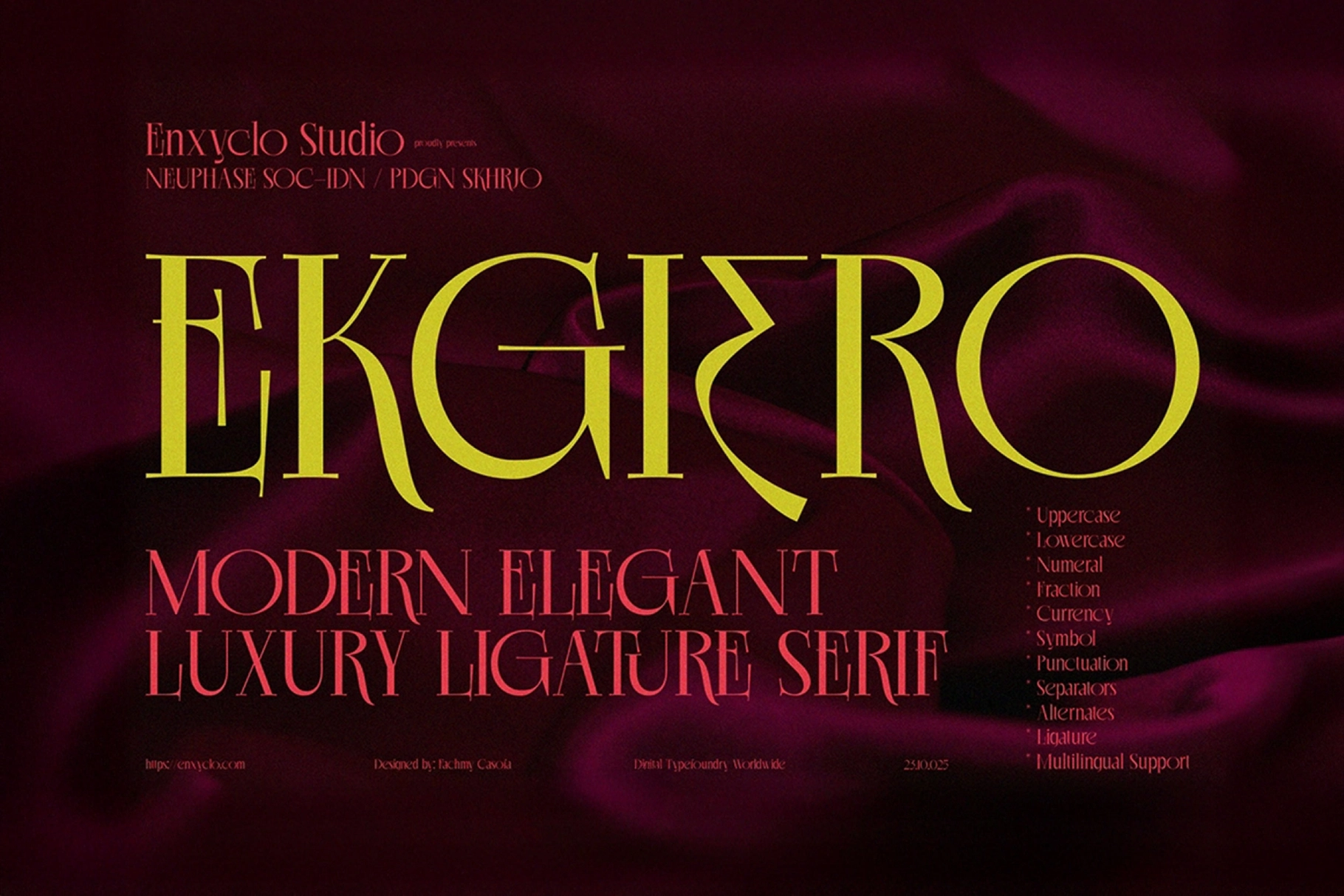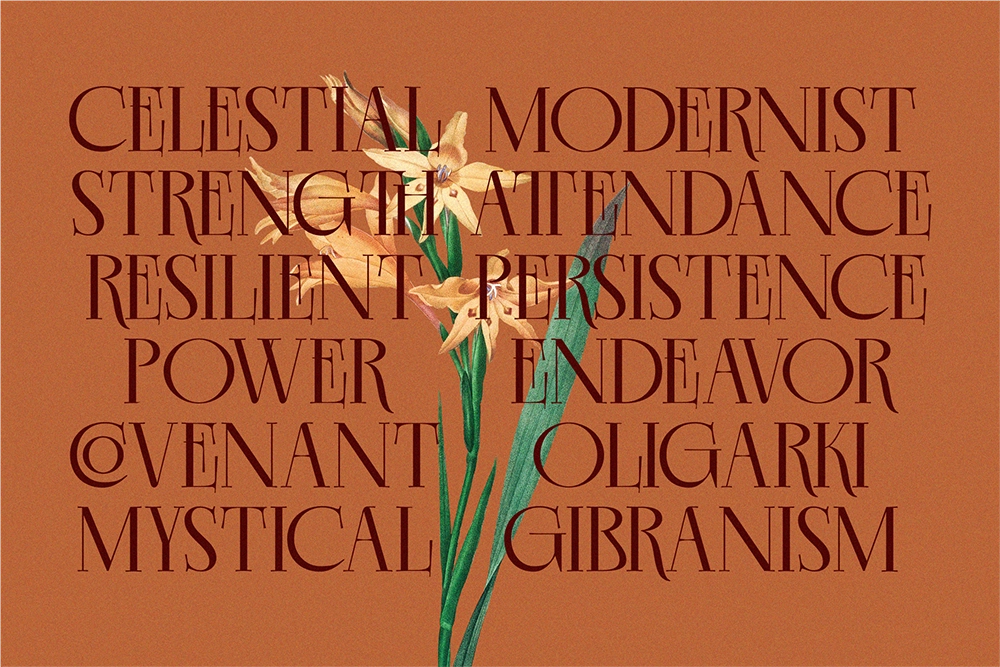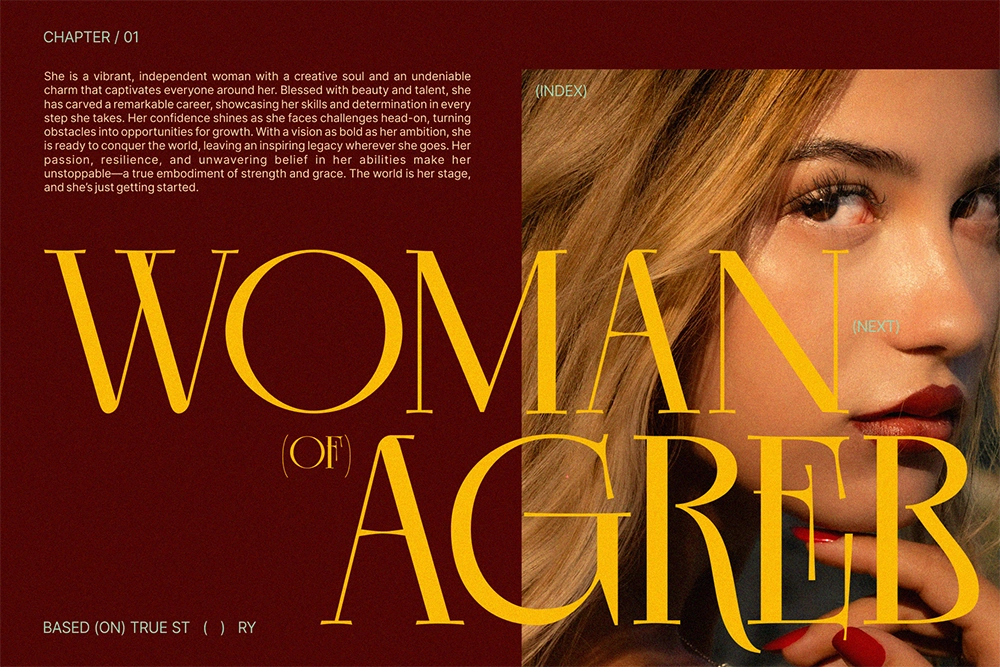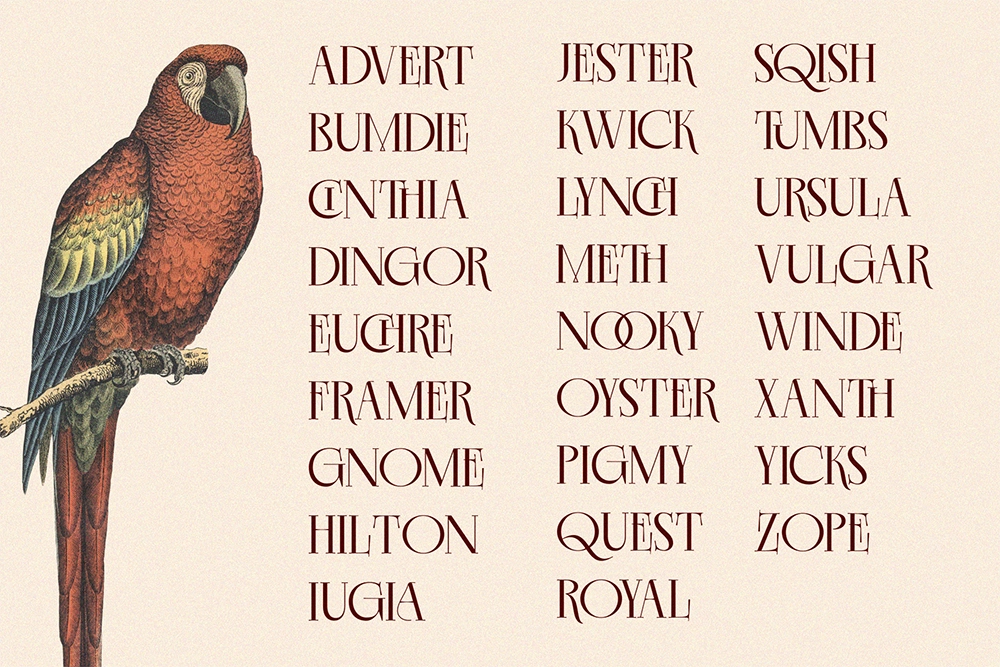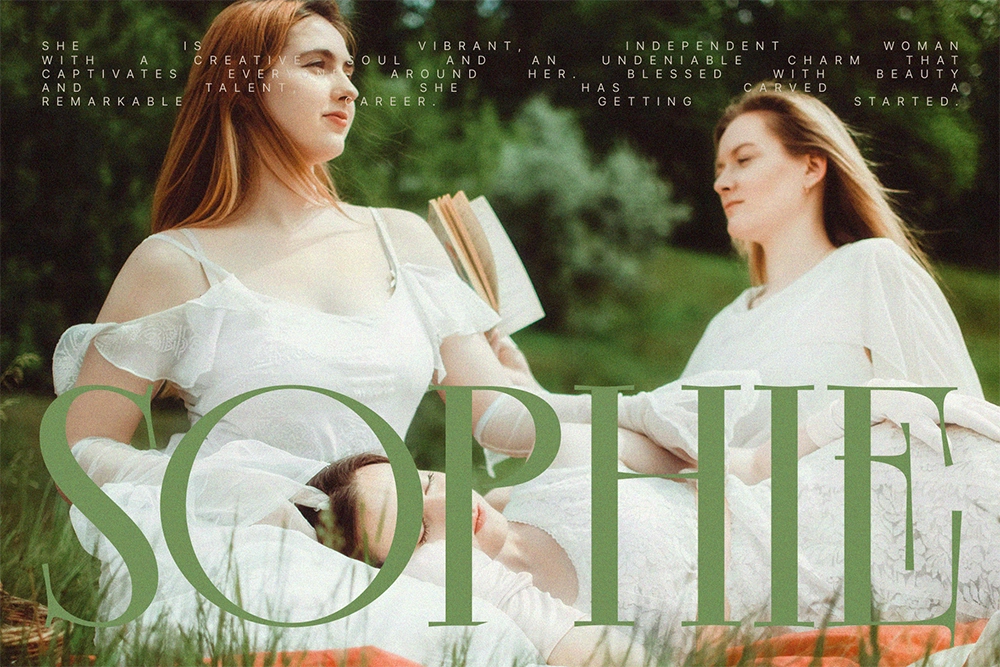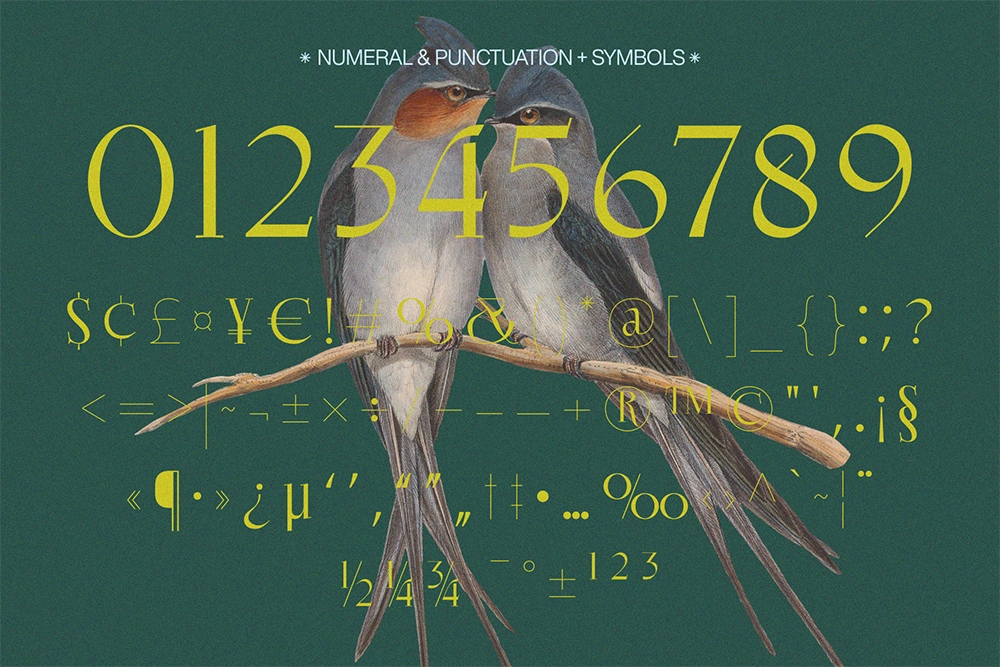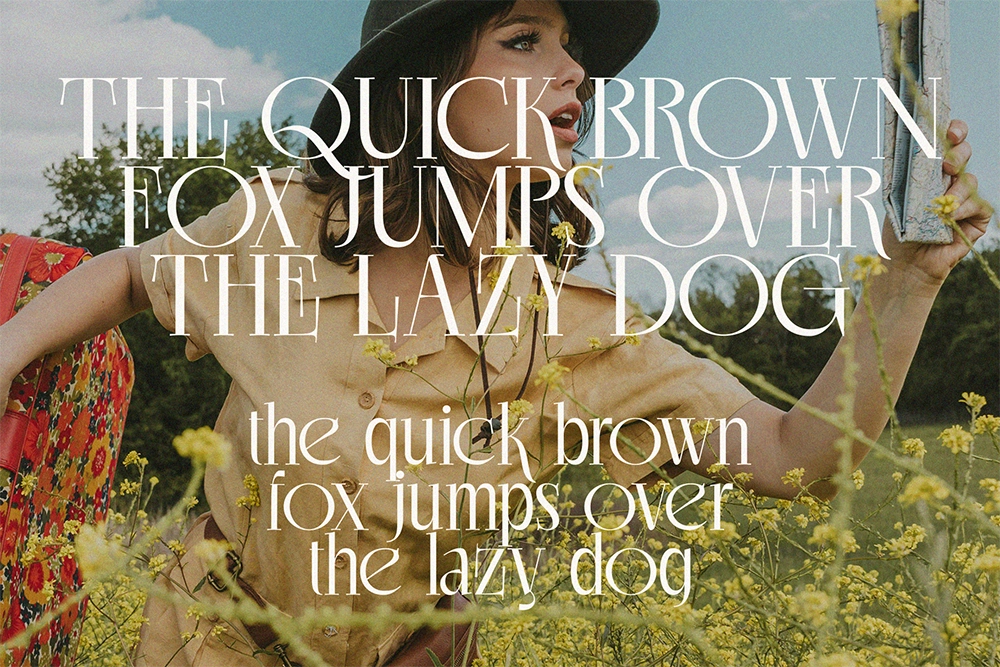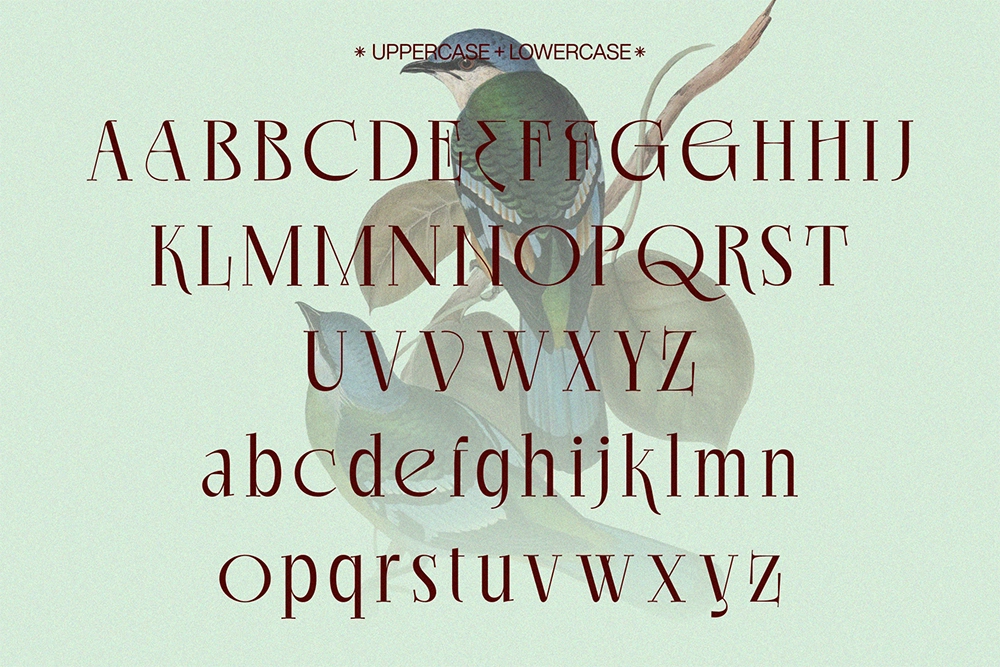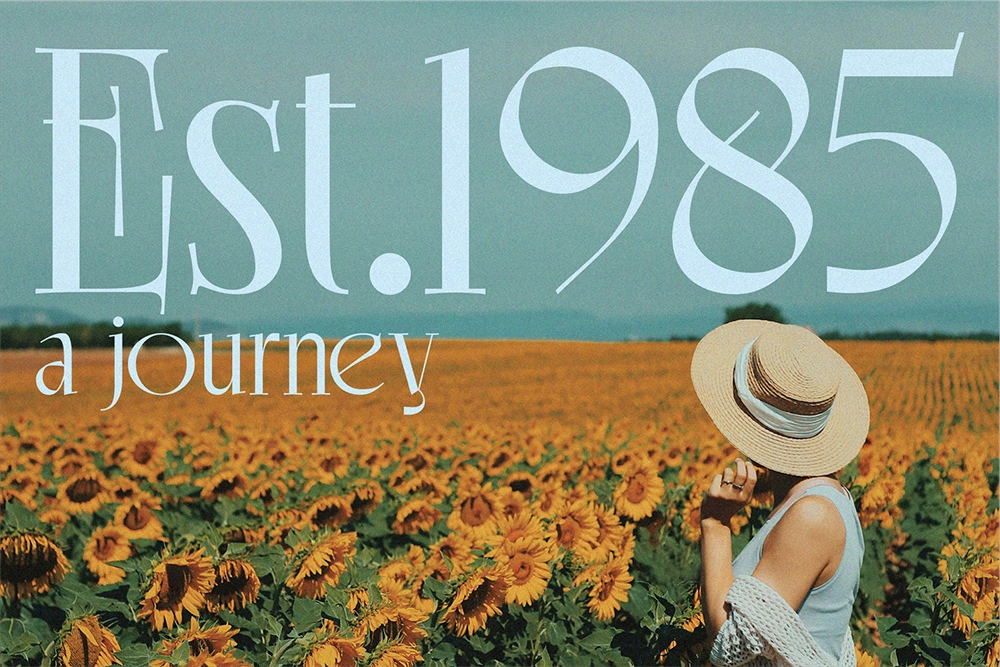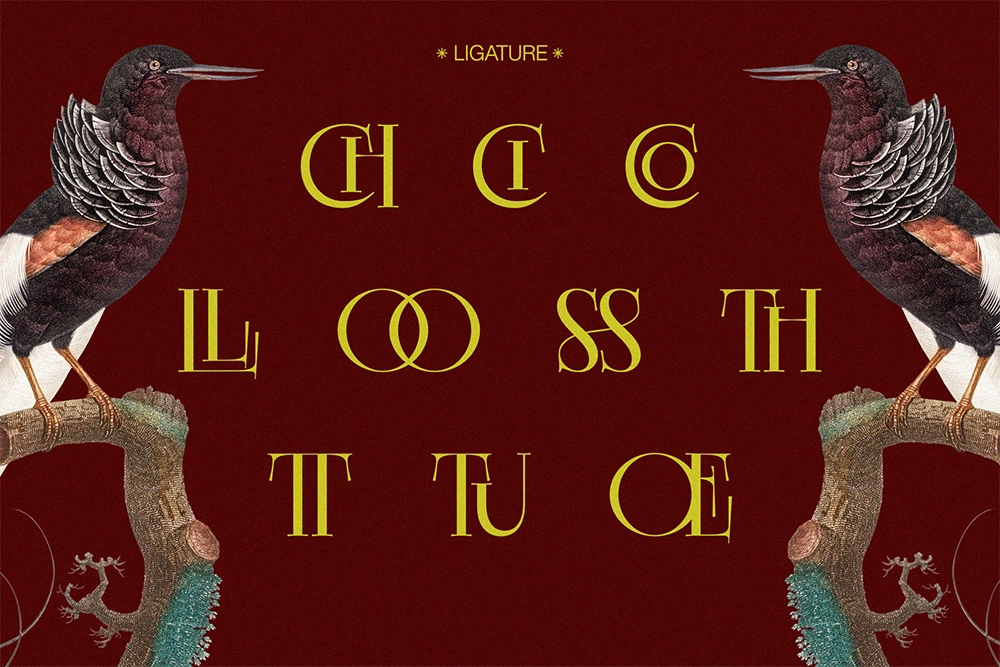
Ekgiero - Luxury Serif Font
Ekgiero – Luxury Serif Font is a refined serif typeface created to bring elegance, sophistication, and a premium aesthetic to modern branding. Designed with balanced proportions and stylish serif details, Ekgiero combines classic typography with contemporary luxury, making it an excellent choice for fashion labels, beauty brands, and high-end visual identities. Its clean structure and elegant character shapes deliver a polished look that instantly elevates logos, packaging, and editorial layouts.
Crafted for designers who want to express glamour and prestige, Ekgiero includes a rich set of alternates and ligatures that allow for expressive and distinctive typography. Whether used for cosmetic branding, skincare packaging, boutique identities, or stylish editorial headlines, this typeface provides the flexibility and refinement needed to create luxurious and memorable design work.
- Alternates & Ligatures
- Uppercase & Lowercase Characters
- Numerals, Punctuation & Symbols
- Elegant Luxury Serif Design